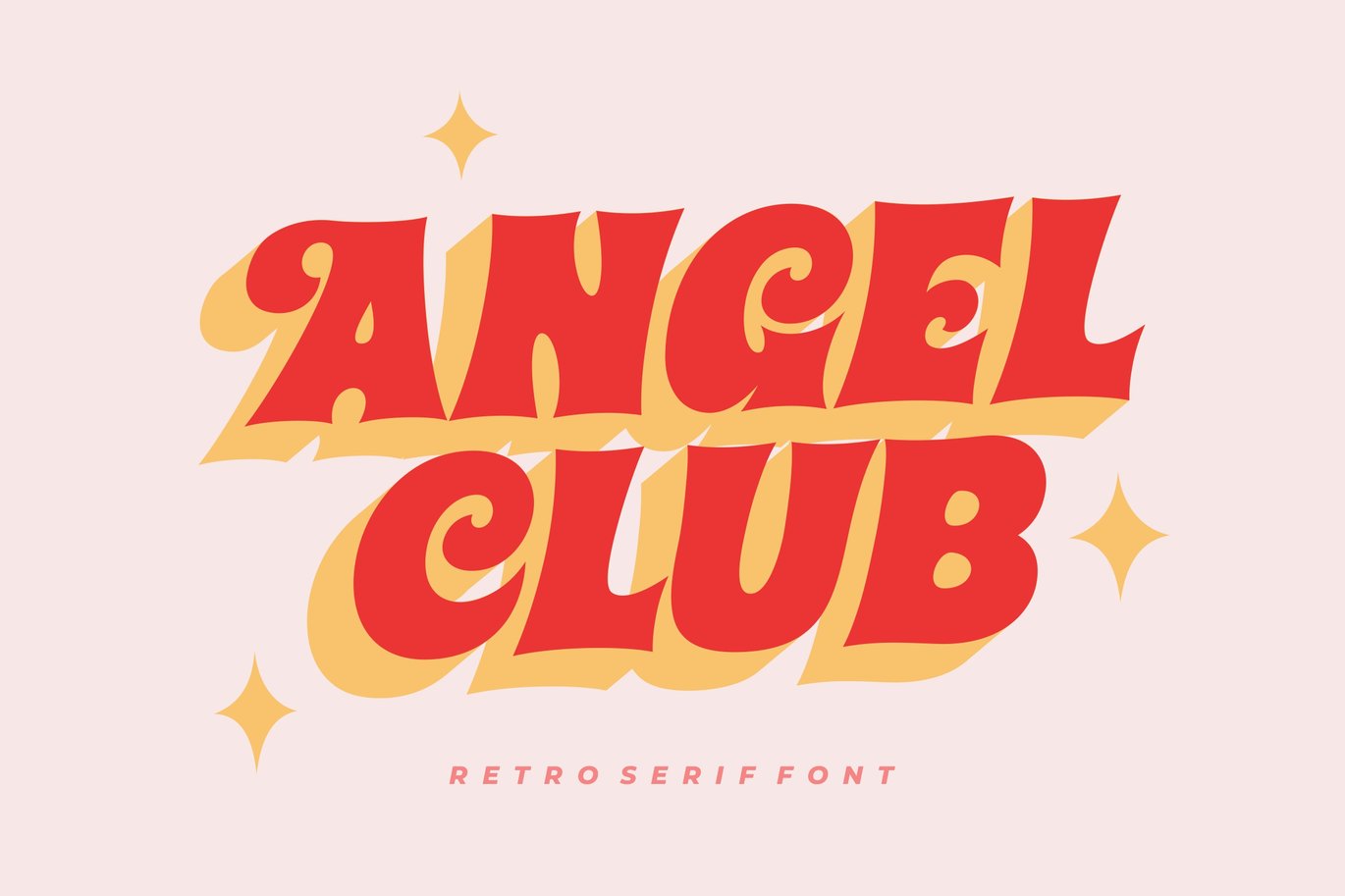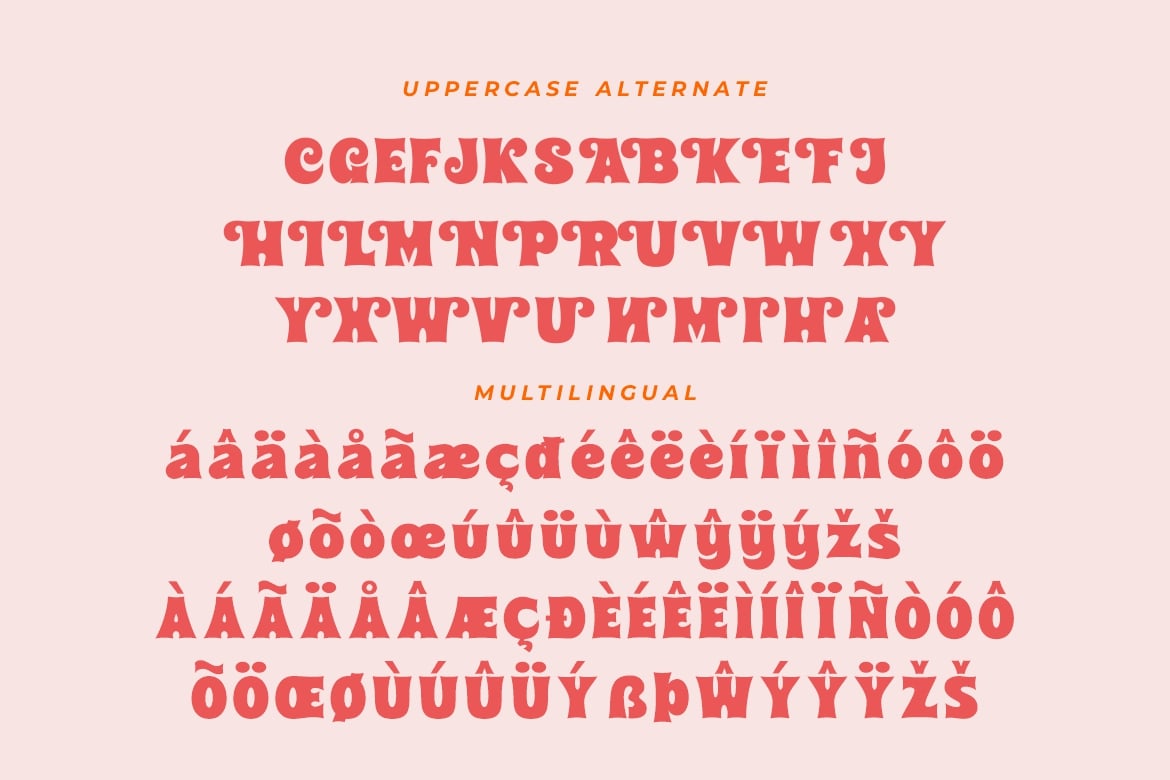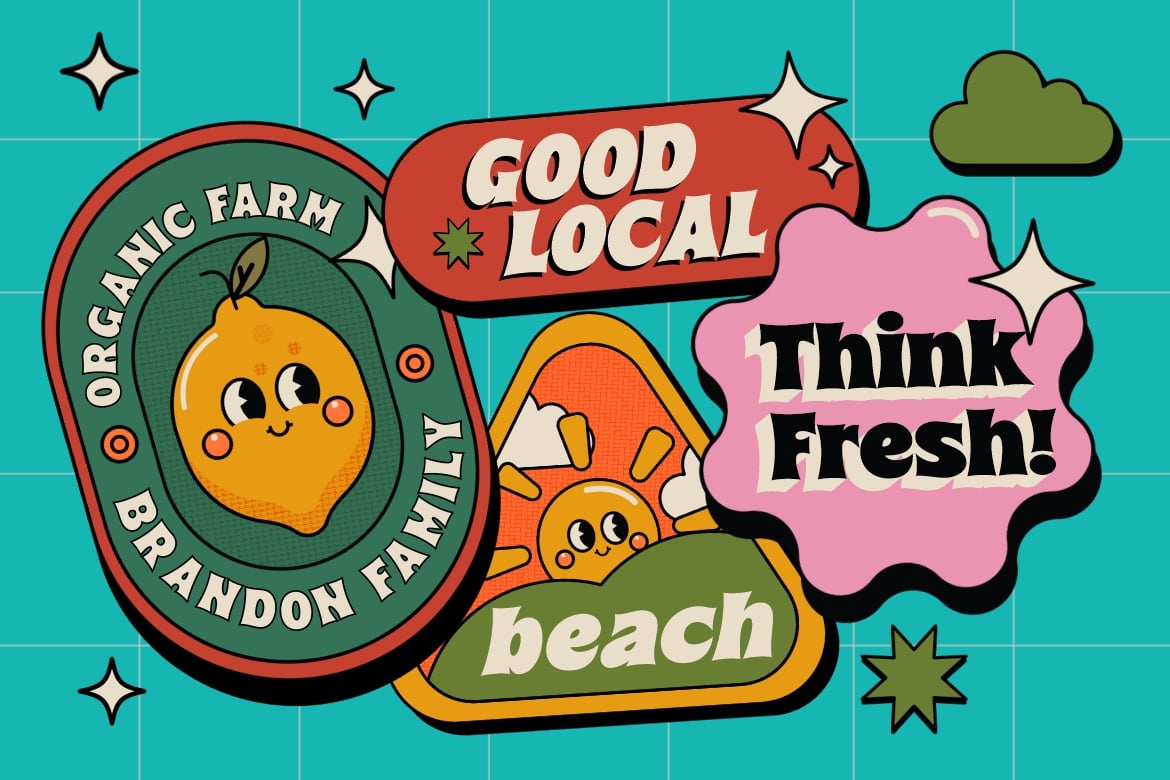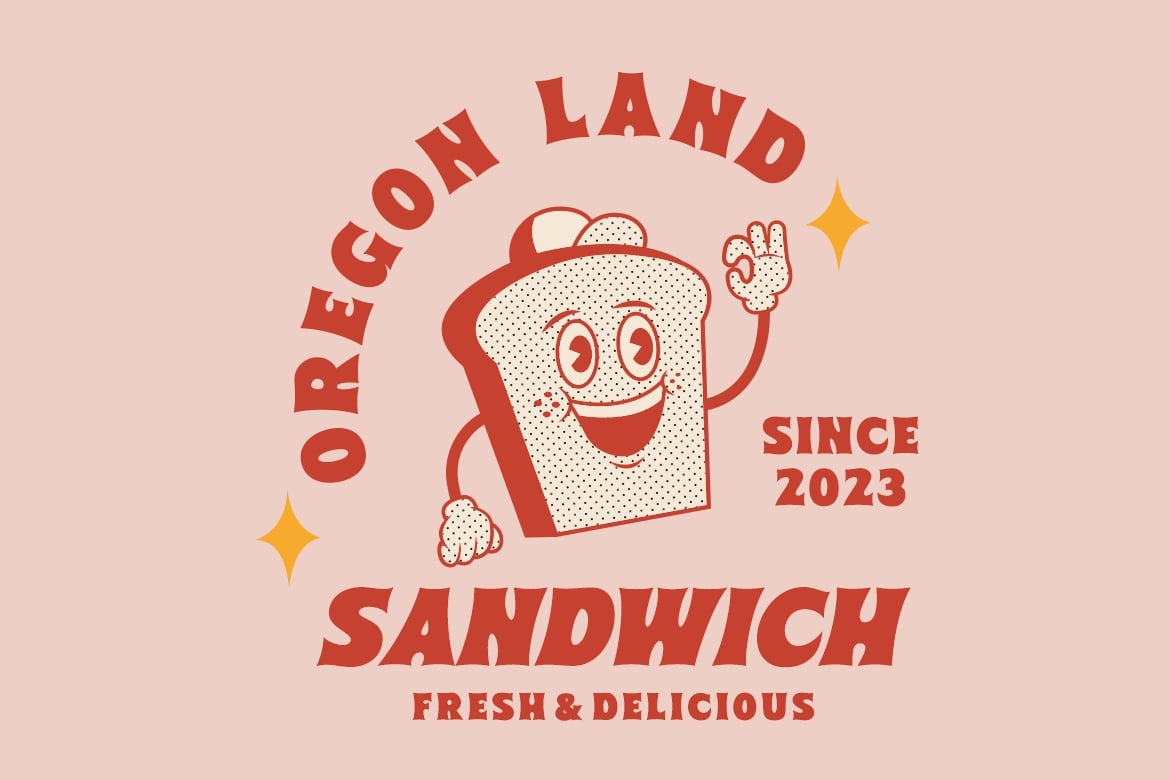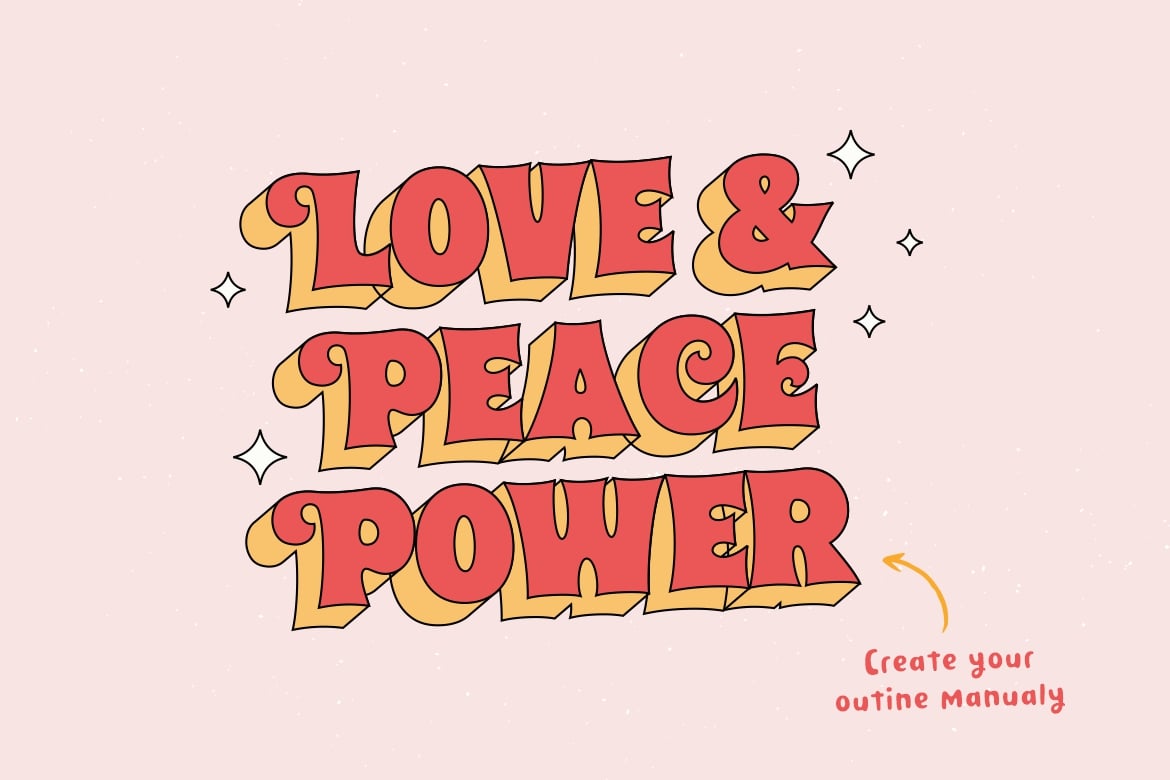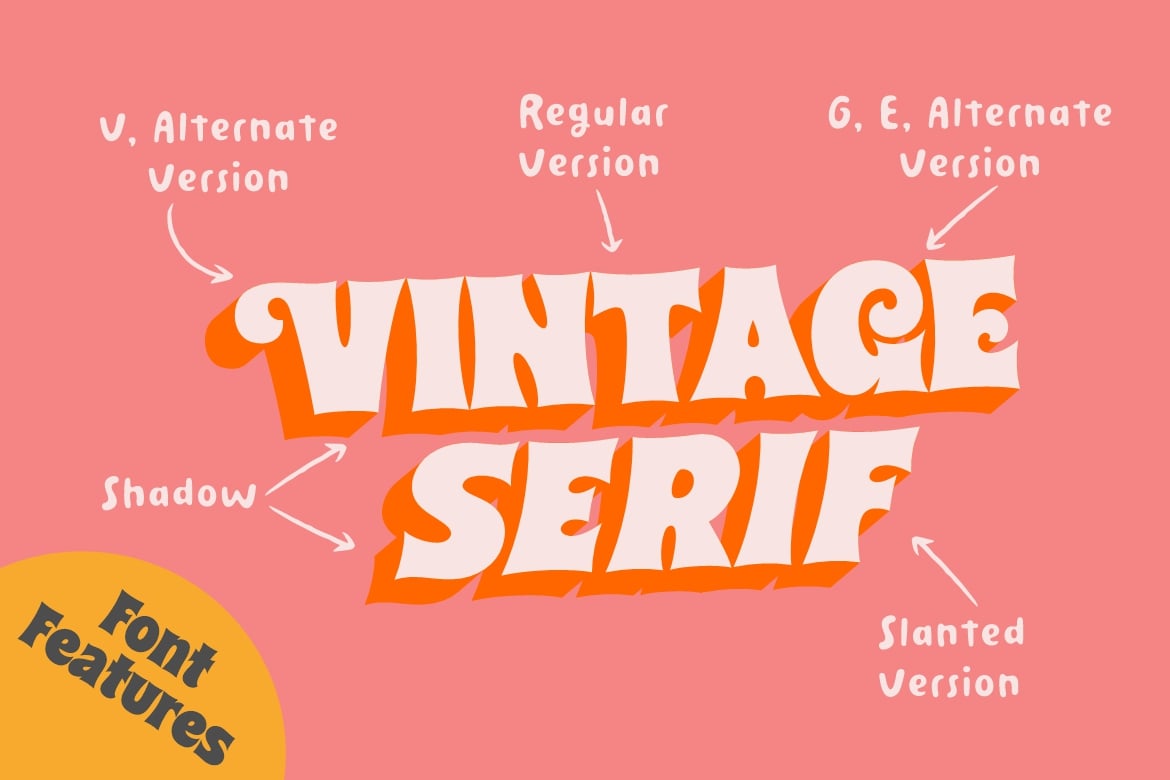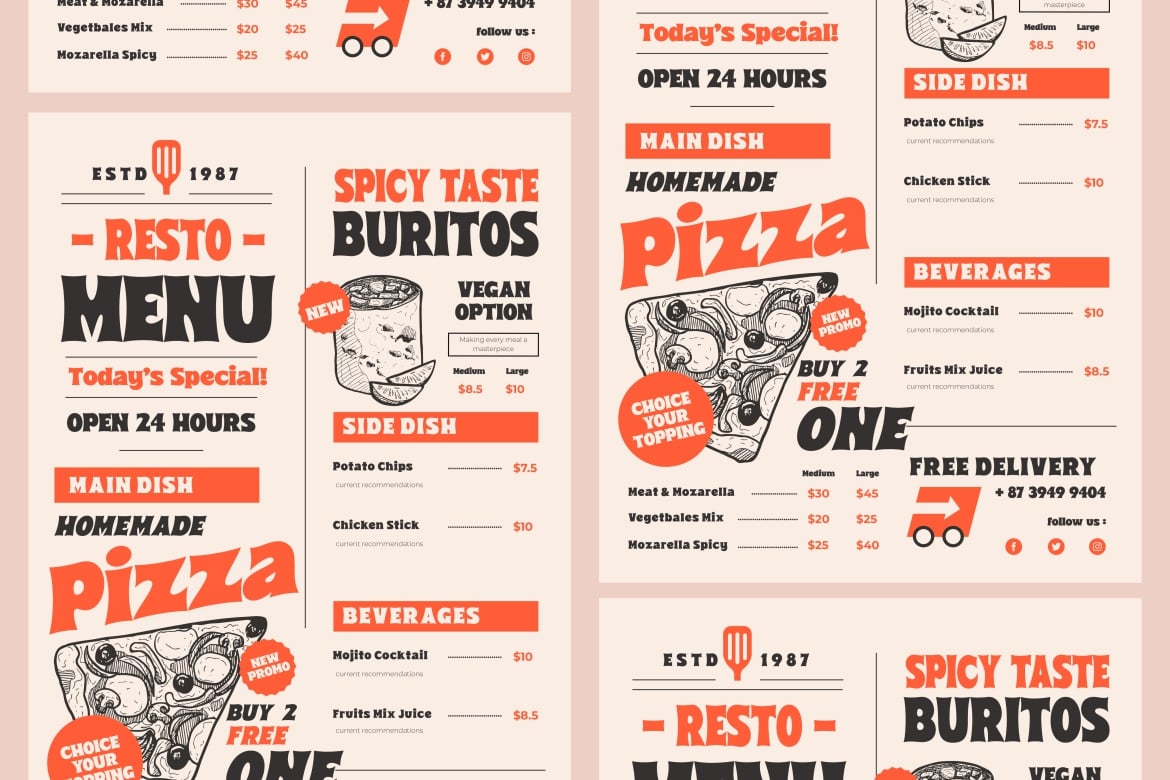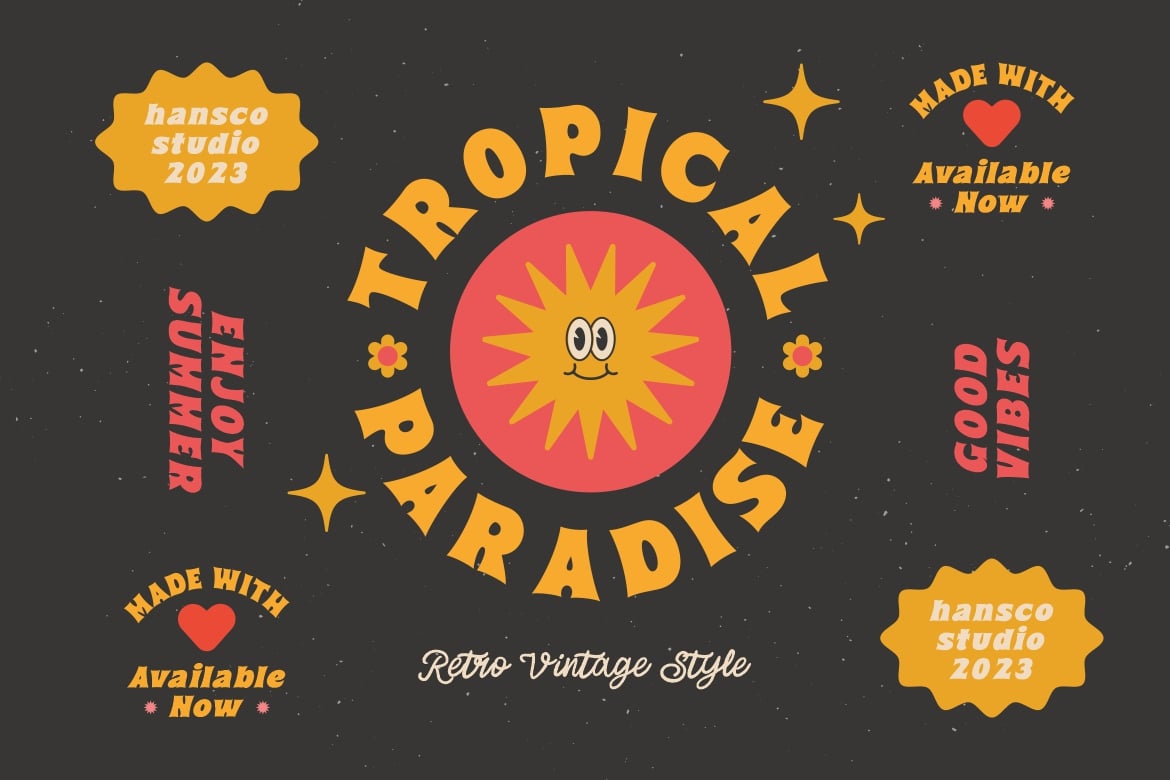
Angel Club Font
Angel Club font is a bold retro serif display font. You will get 3 styles of fonts in this pack, Regular, slanted and Shadow version. This font is made by carrying the concept of nineties style, so it is perfect and suitable for application in any project with retro vibes. Use this display font to add that special retro touch to any design idea you can think of!